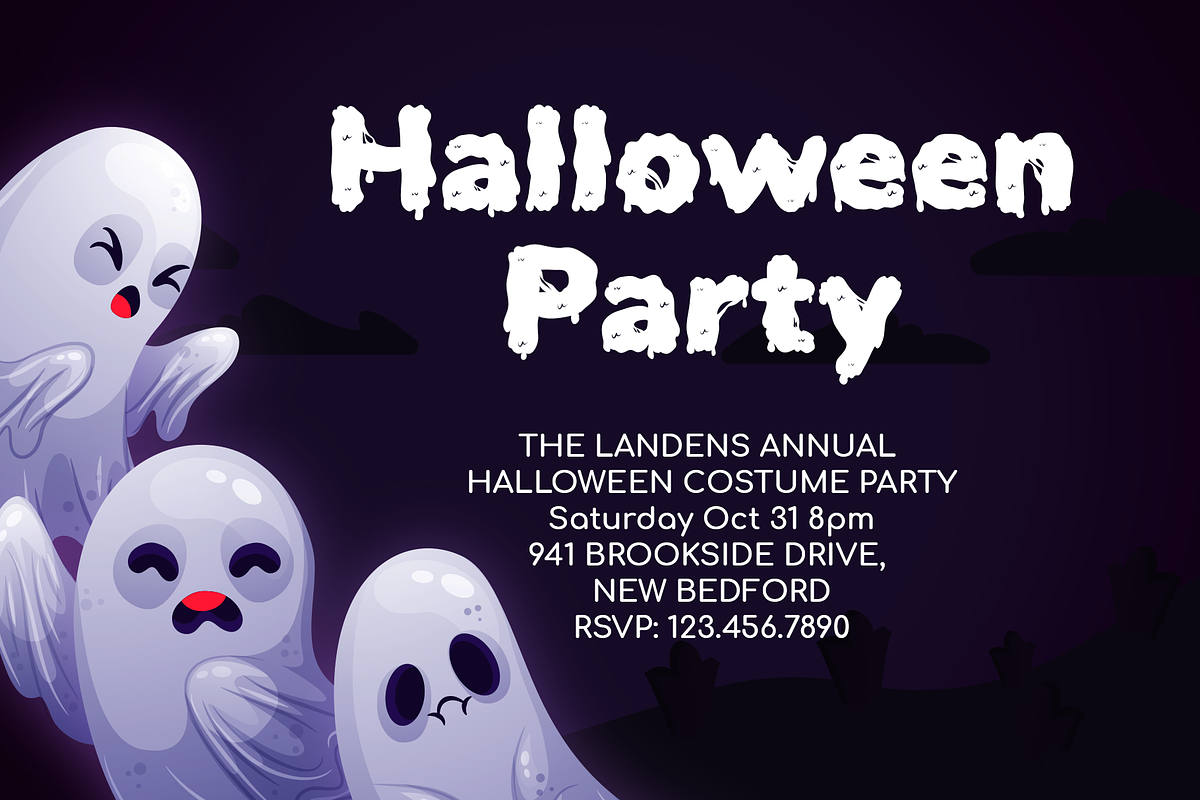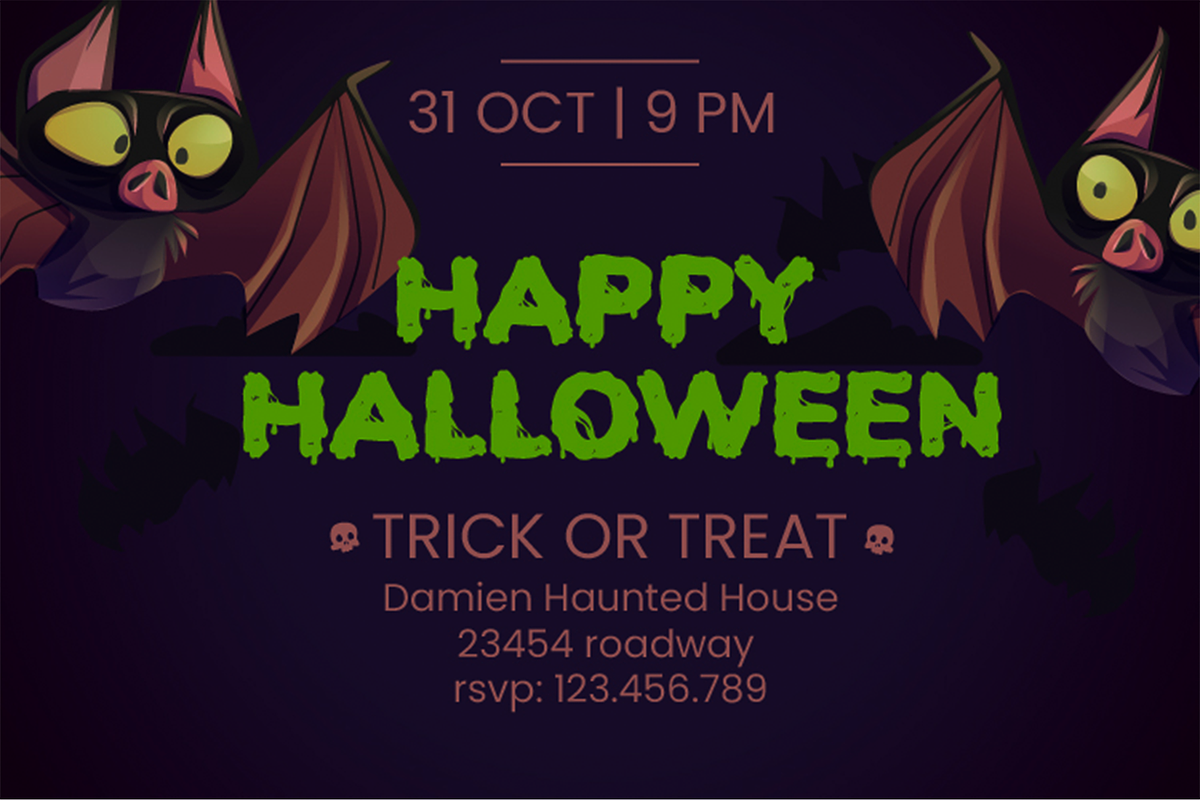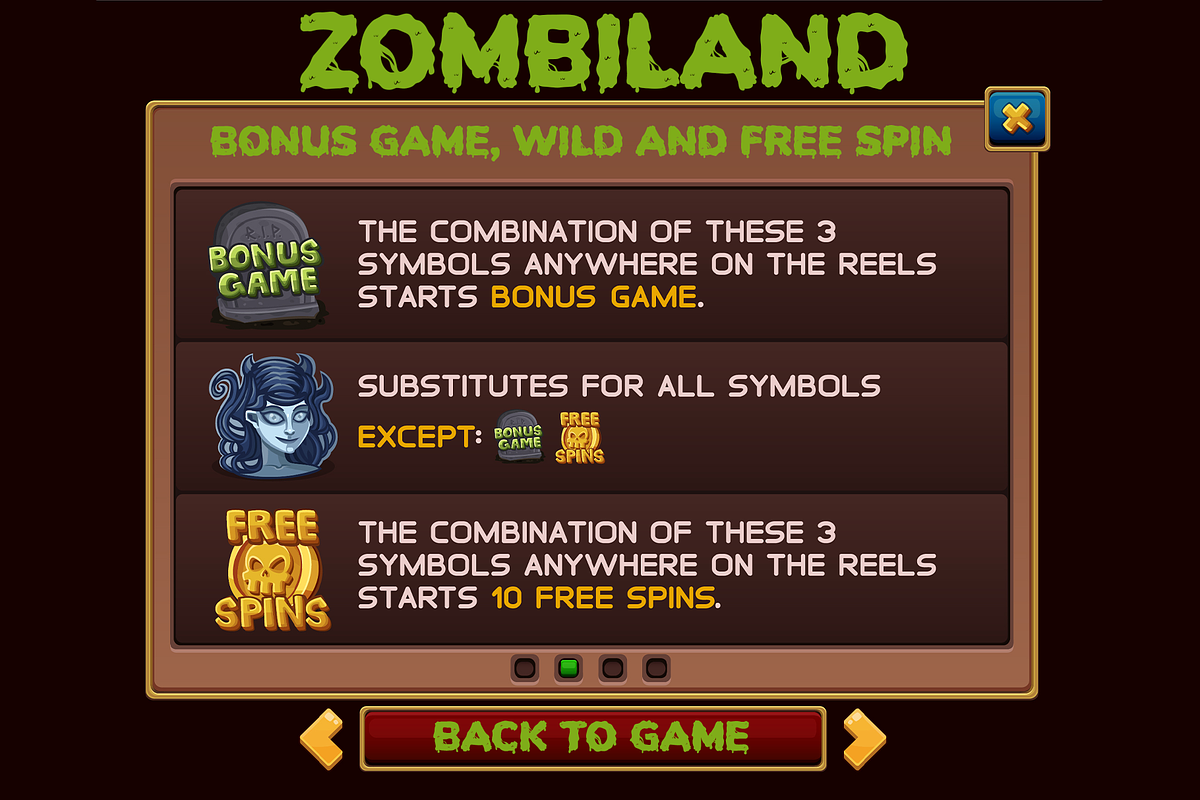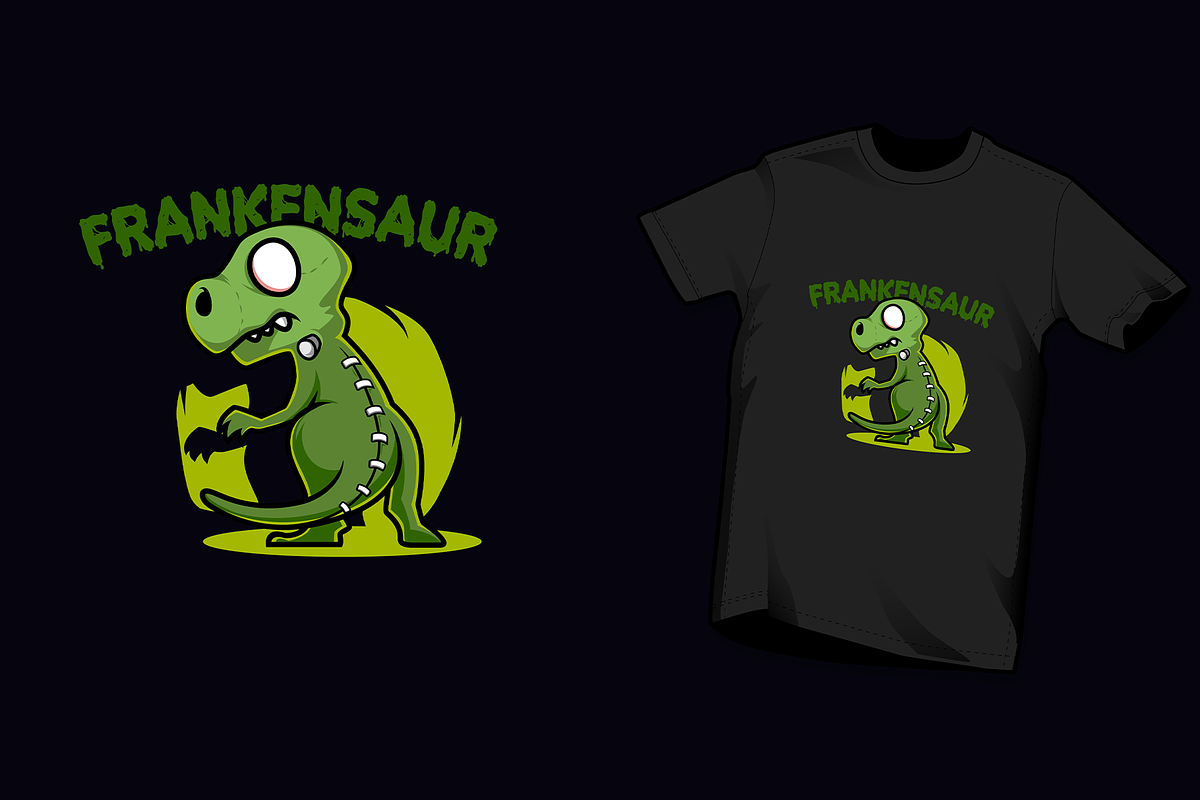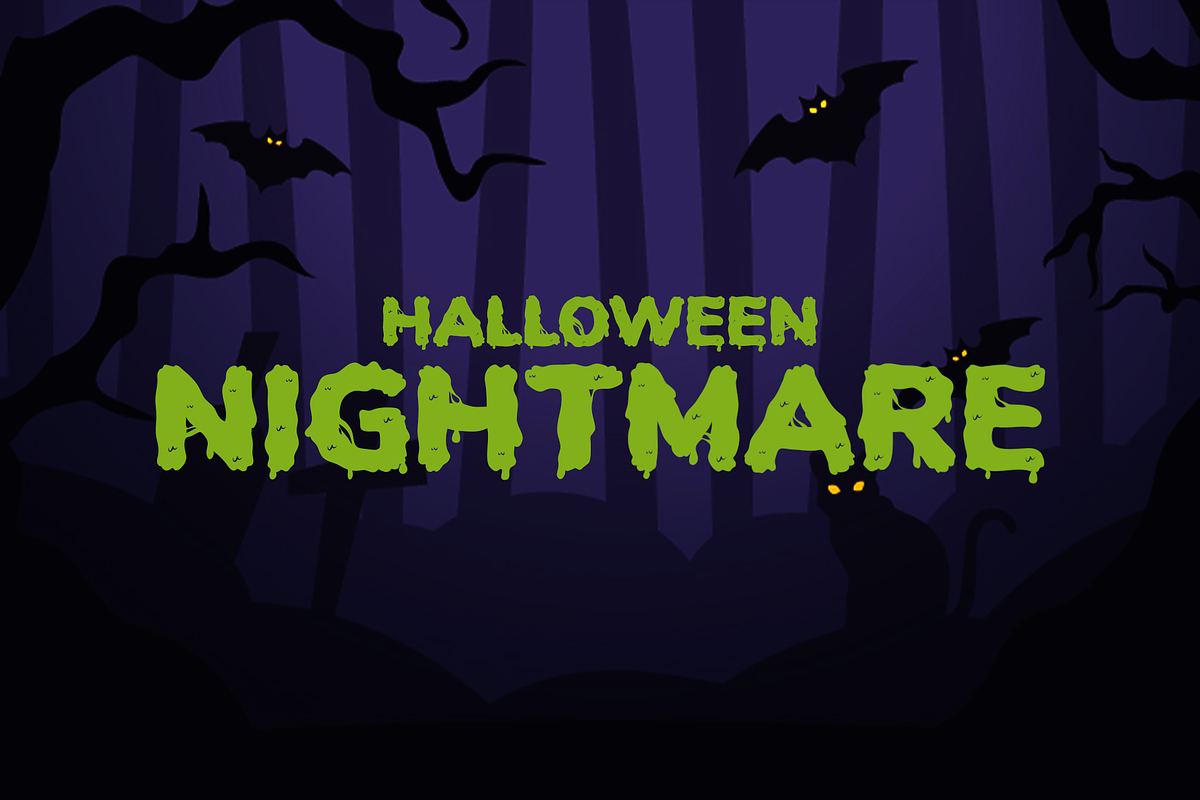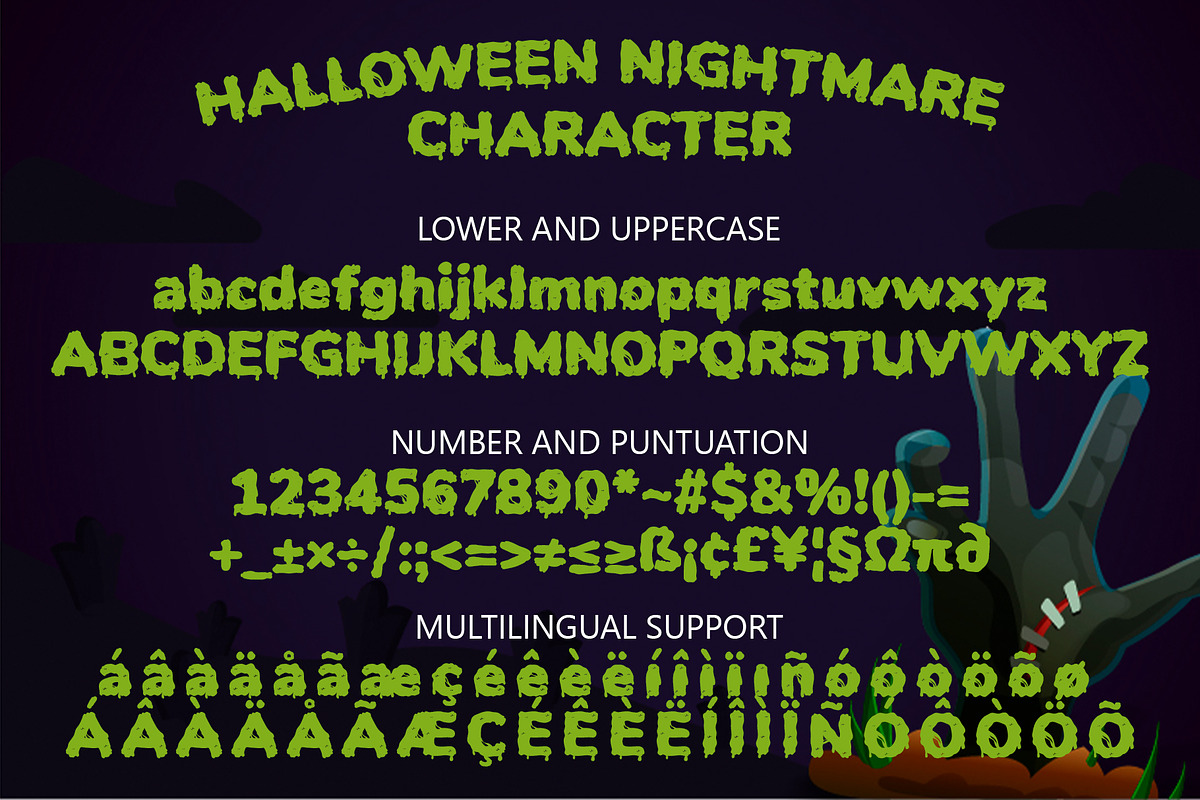
Halloween Nightmare - Spooky Display
Halloween Nightmare is an incredibly unique and spooky display font. Add this font to your favorite Halloween themed ideas, tshirt, invitations, banner, logo, app game scary or horror and notice how it makes them come alive!
- Ligature and Alternate